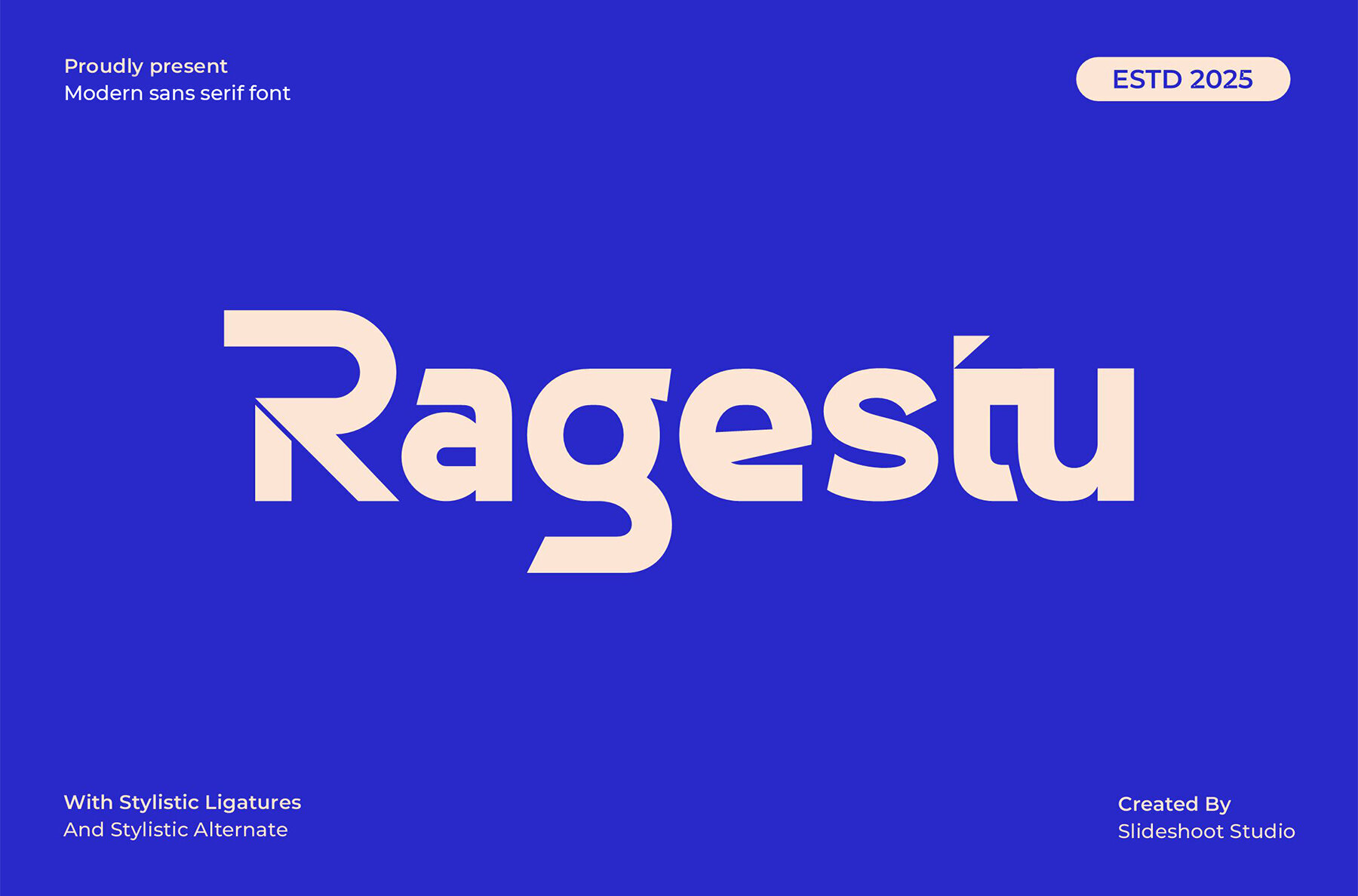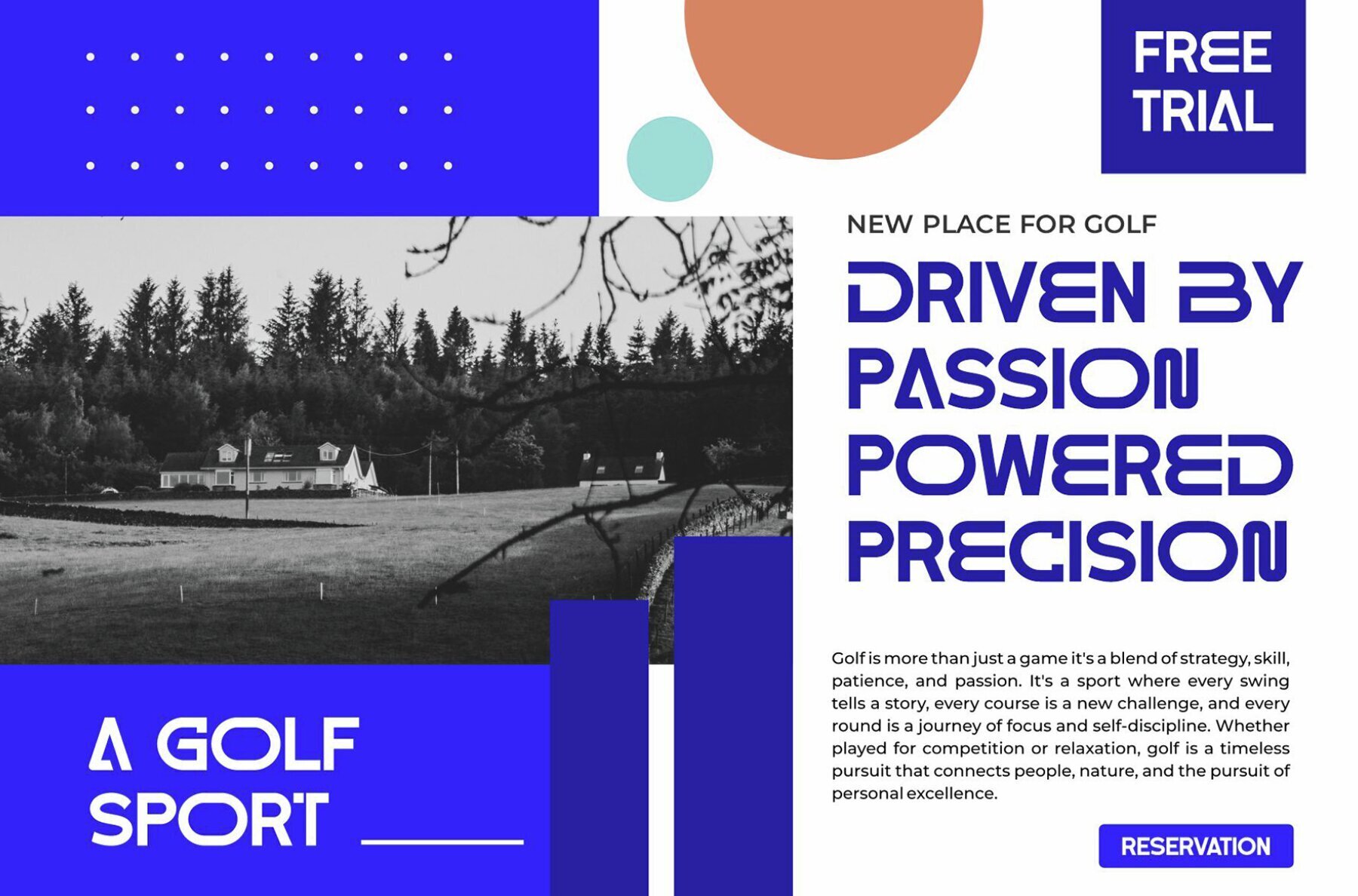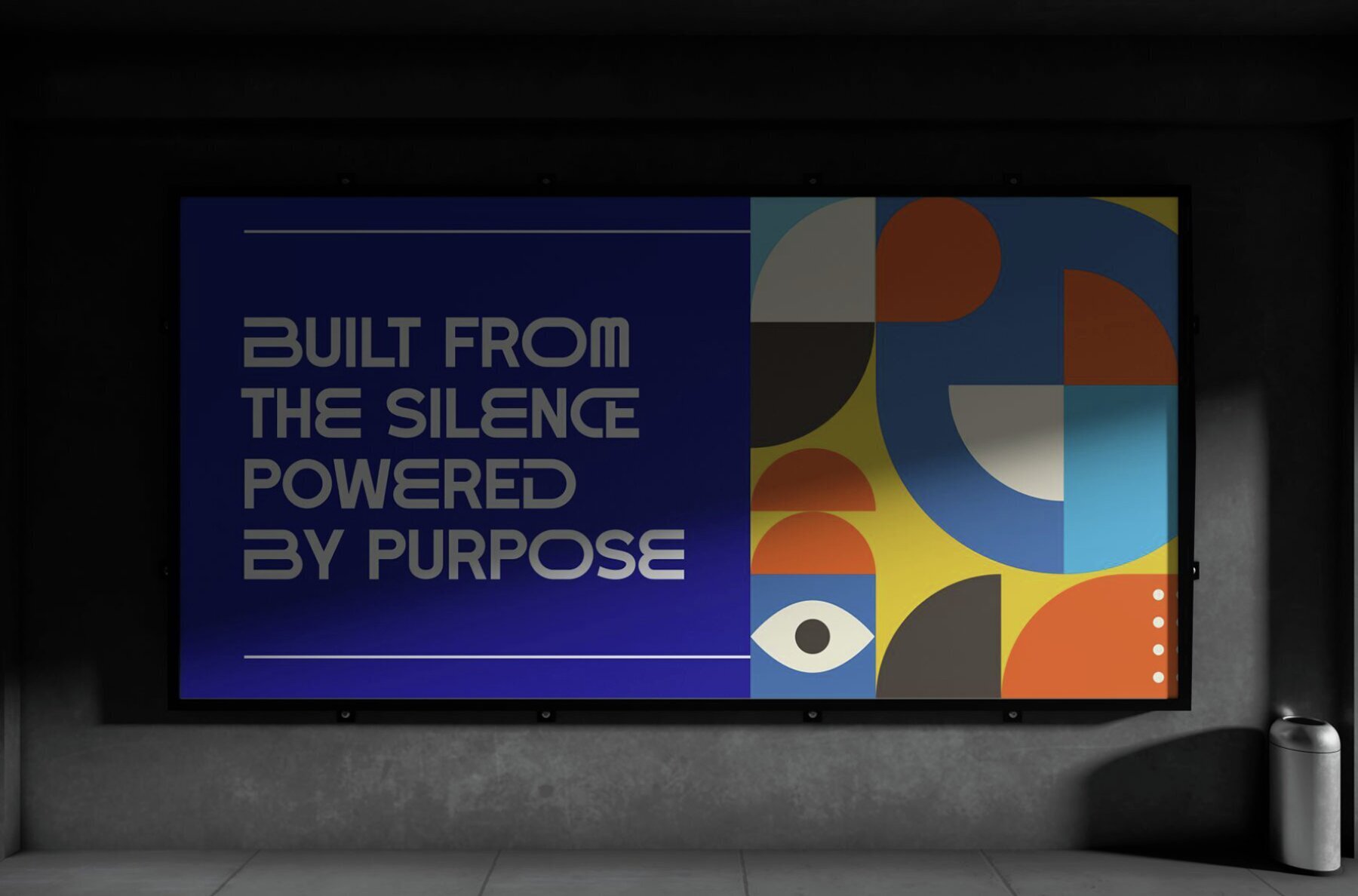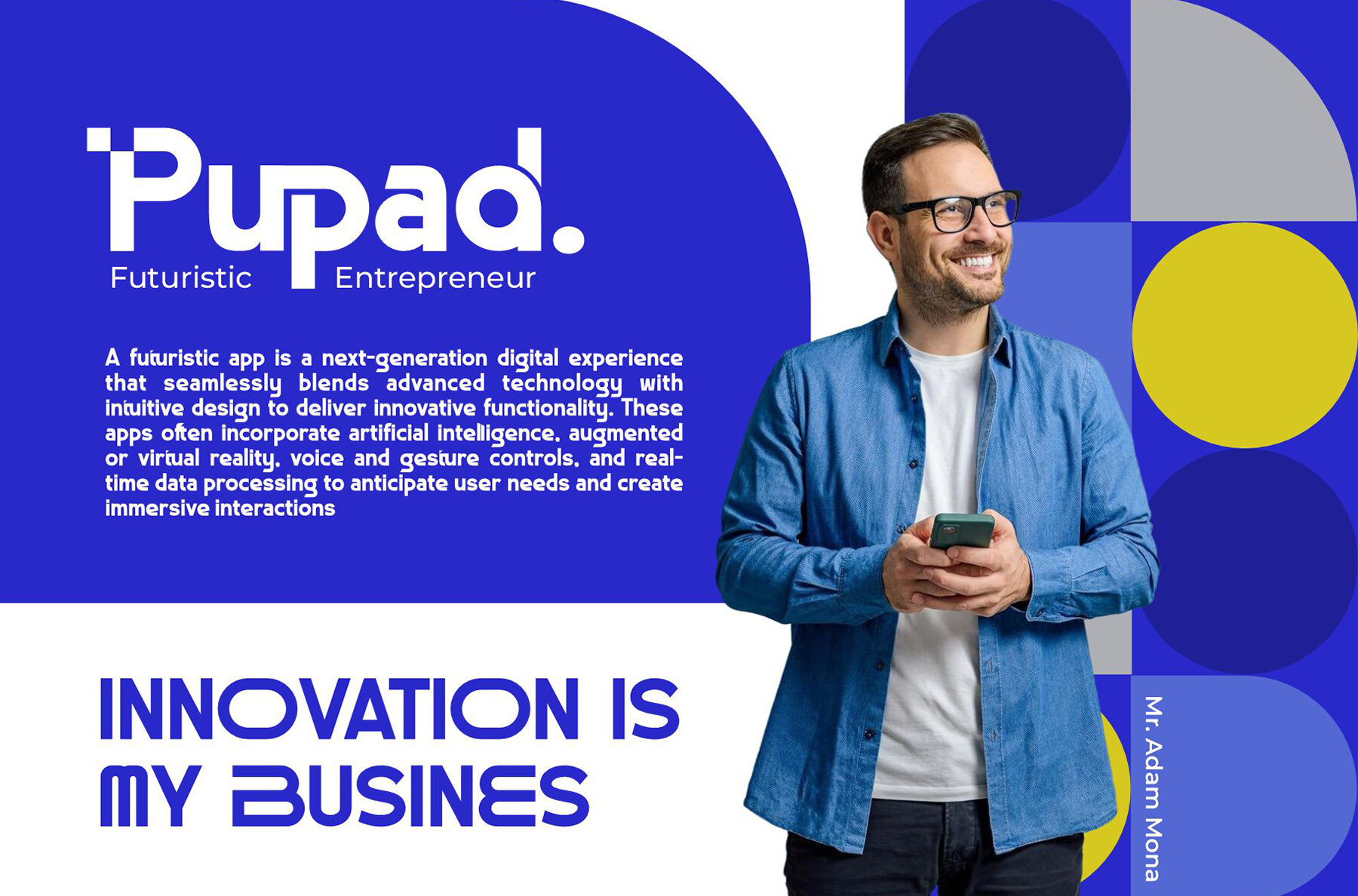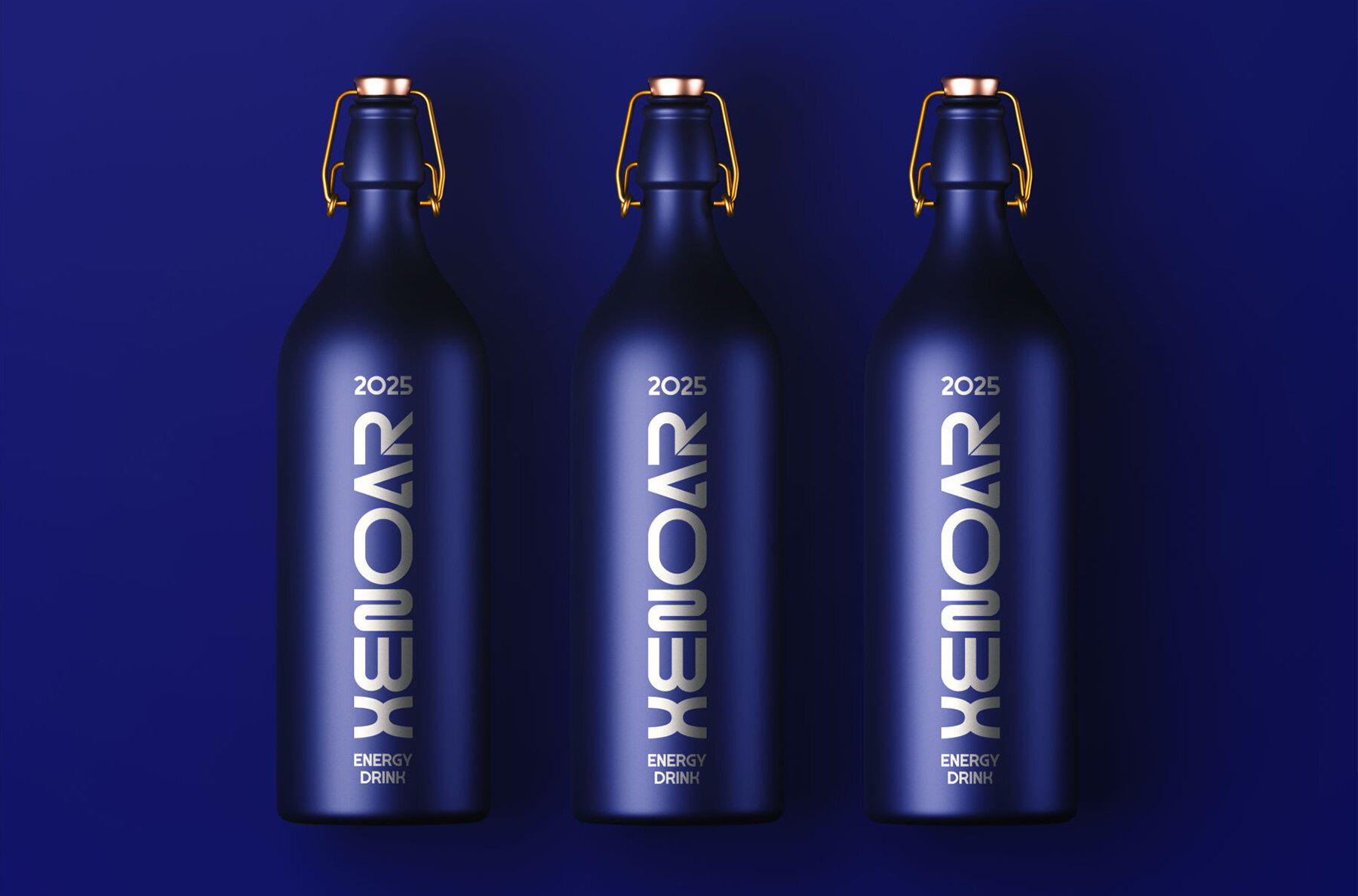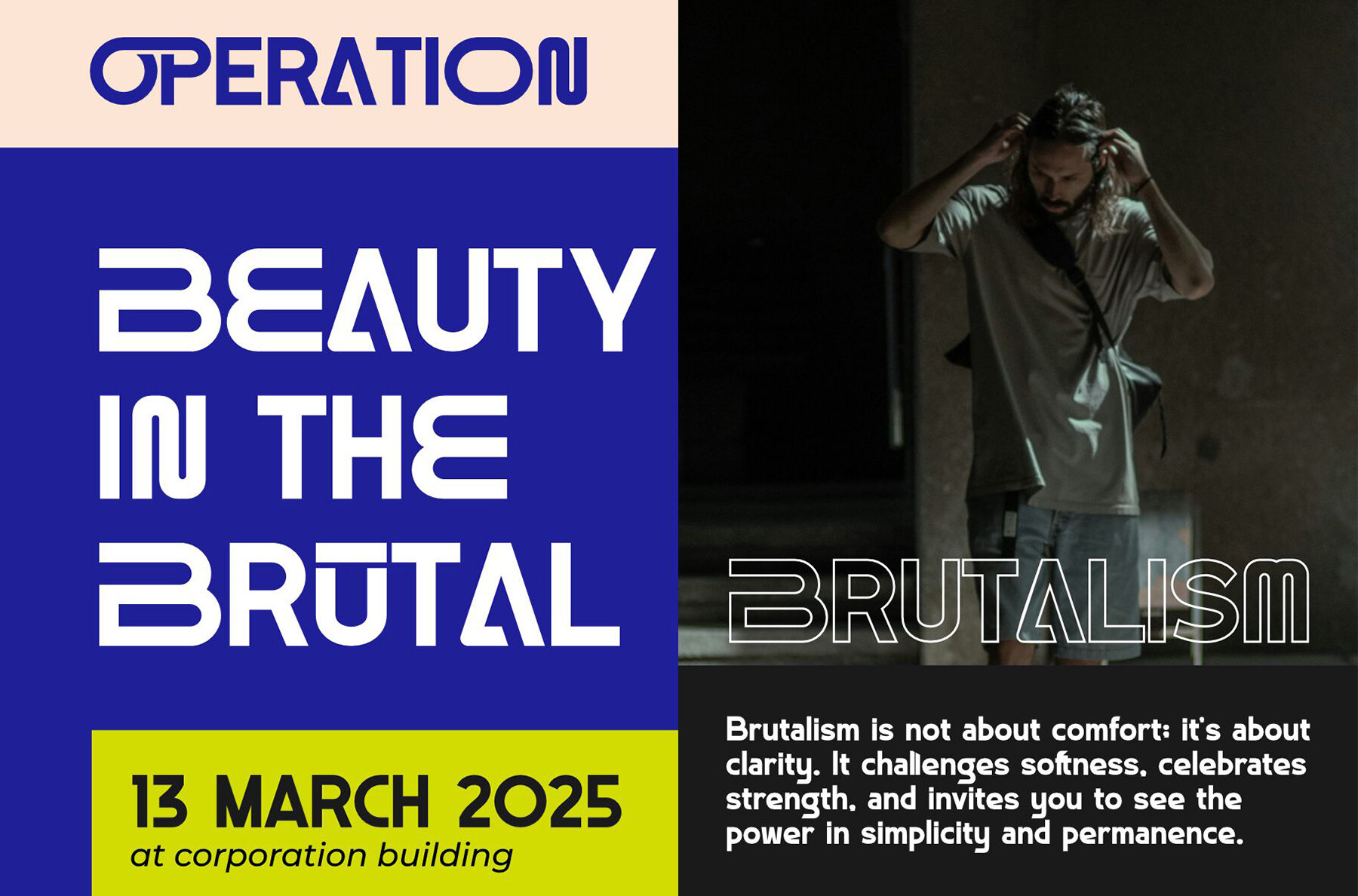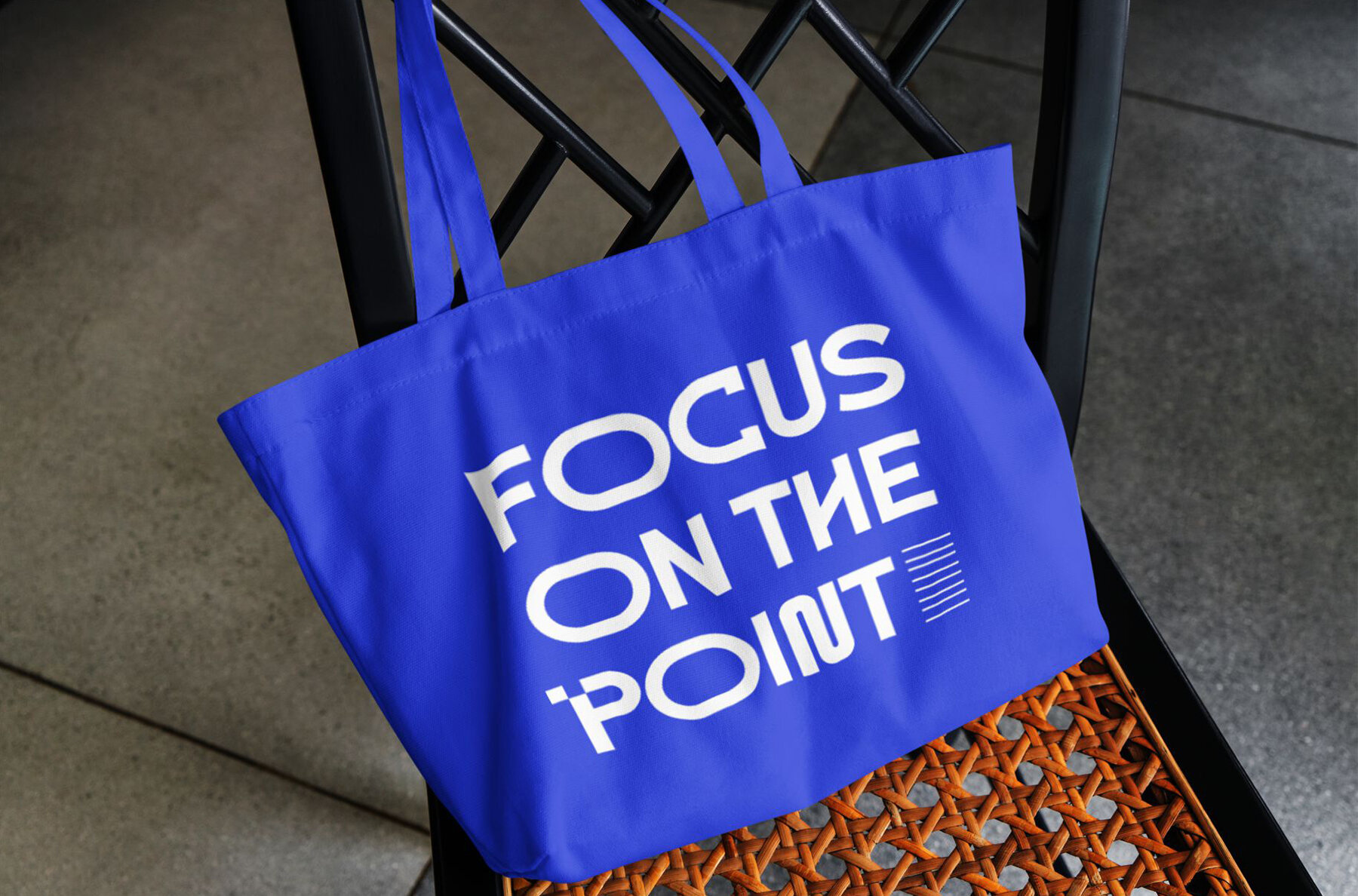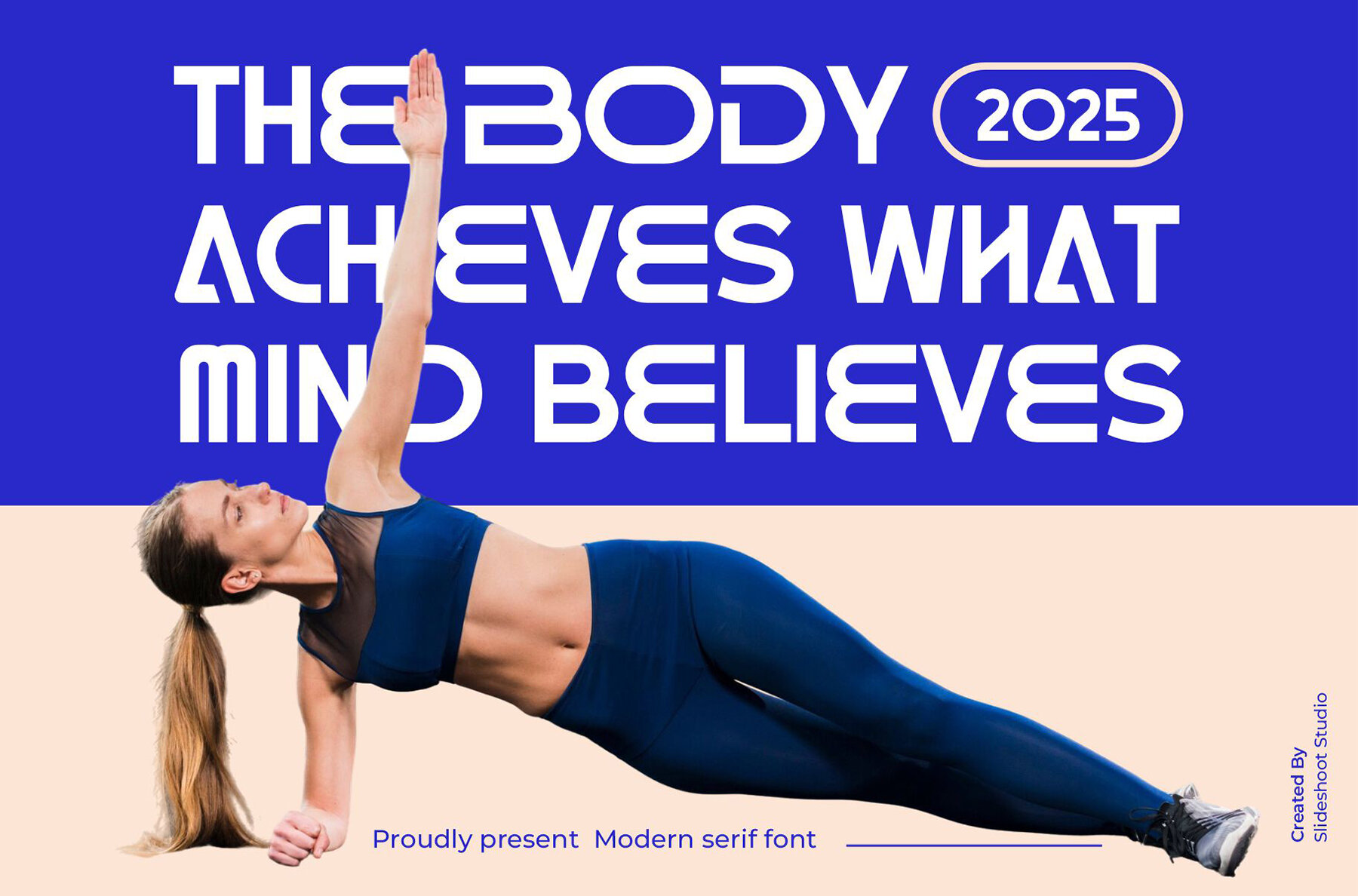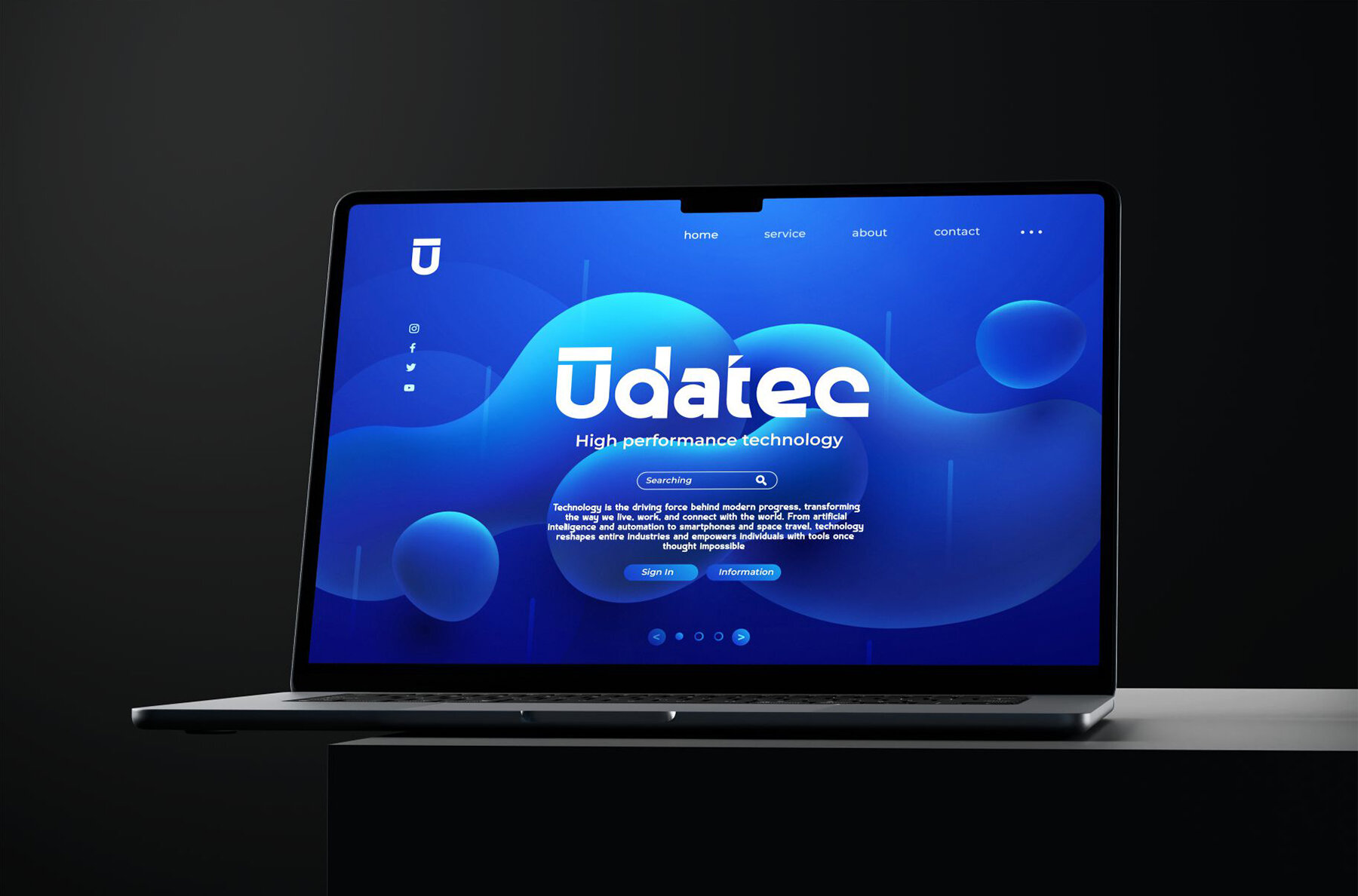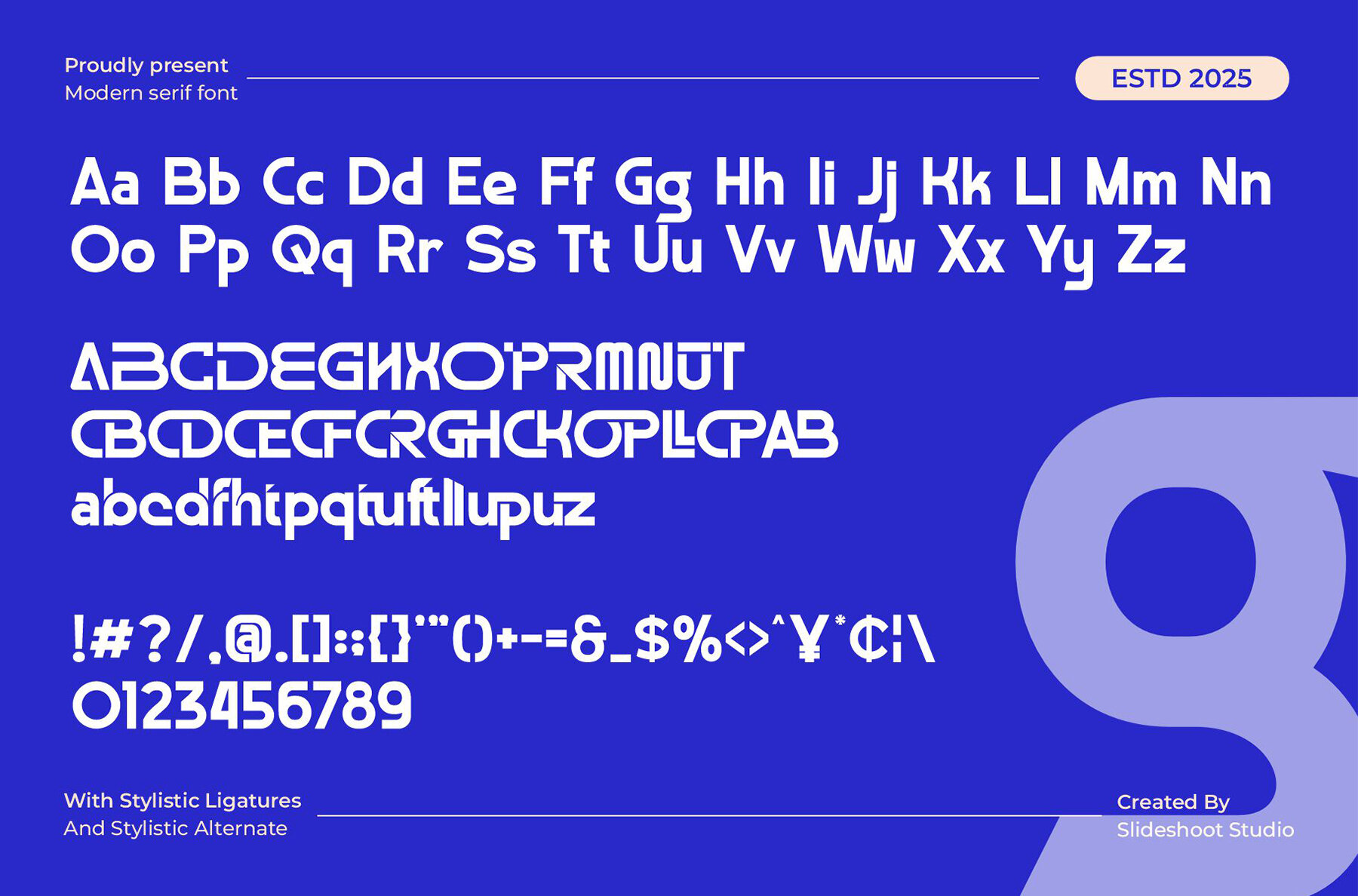
Ragestu Font
Ragestu
Discover Ragestu, a sans serif font that embodies a futuristic and modern aesthetic. Its clean lines and innovative design make it an ideal choice for an array of projects: from branding and logo design to clothing and special events. Ragestu offers versatility and style, effortlessly elevating your creative endeavors.Ragestu Sans Serif Font